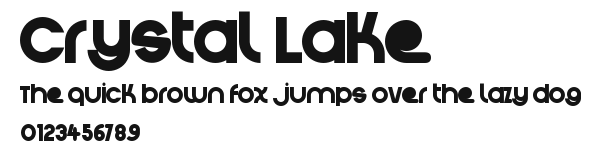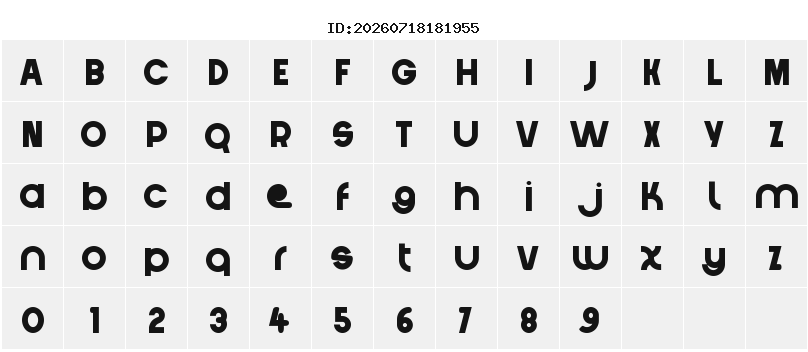
• Font Name: Crystal Lake
• Designer: paintblack
About Crystal Lake.ttf
Crystal Lake.ttf is a modern, elegant sans-serif font designed for ultimate readability and visual harmony. Perfect for branding, headlines, web design, and print materials.